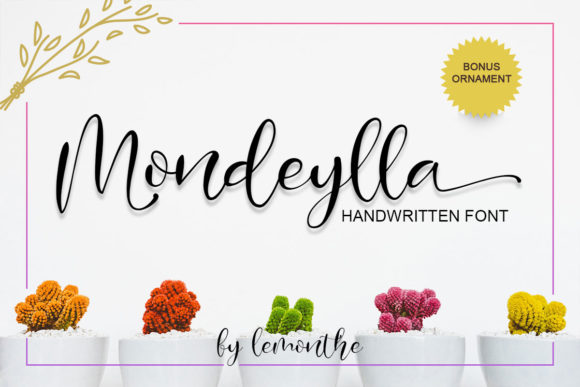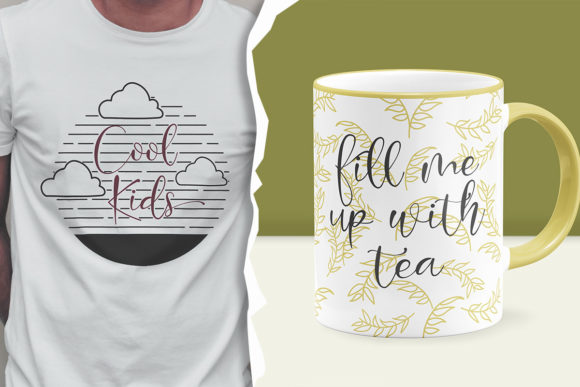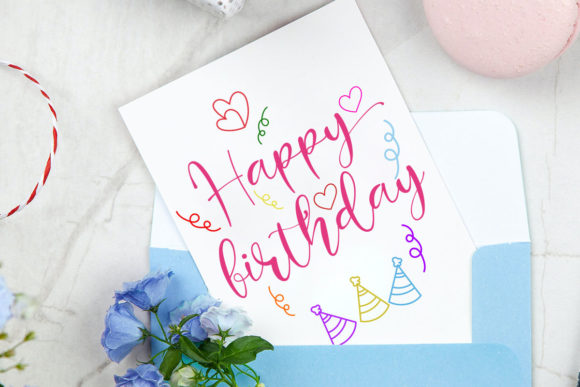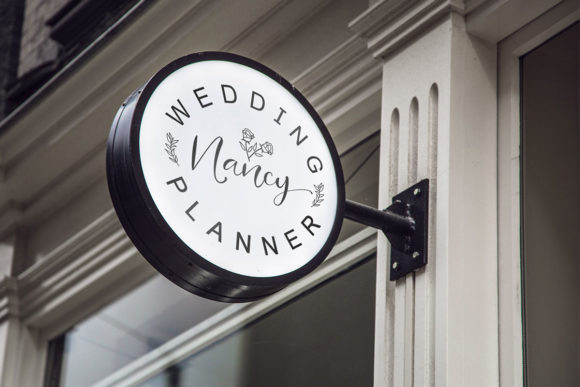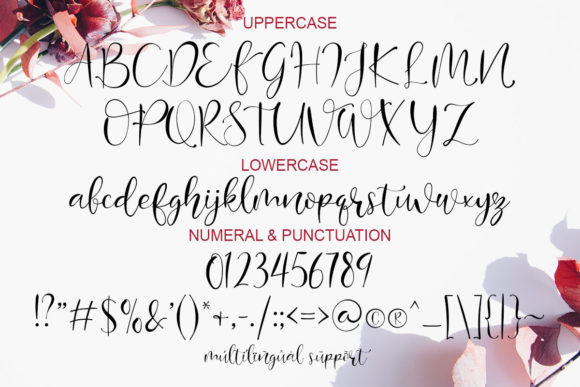
About Mondeylla Font
Mondeylla is a magical handwritten font carefully created with a touch of elegance. It features a beautiful combination of timeless elegance and authentic calligraphy. This font is PUA encoded which means you can access all of the glyphs and swashes with ease! It features a varying baseline, smooth lines, gorgeous glyphs and stunning alternates. Use this gorgeous typeface to bring any DIY project to life!